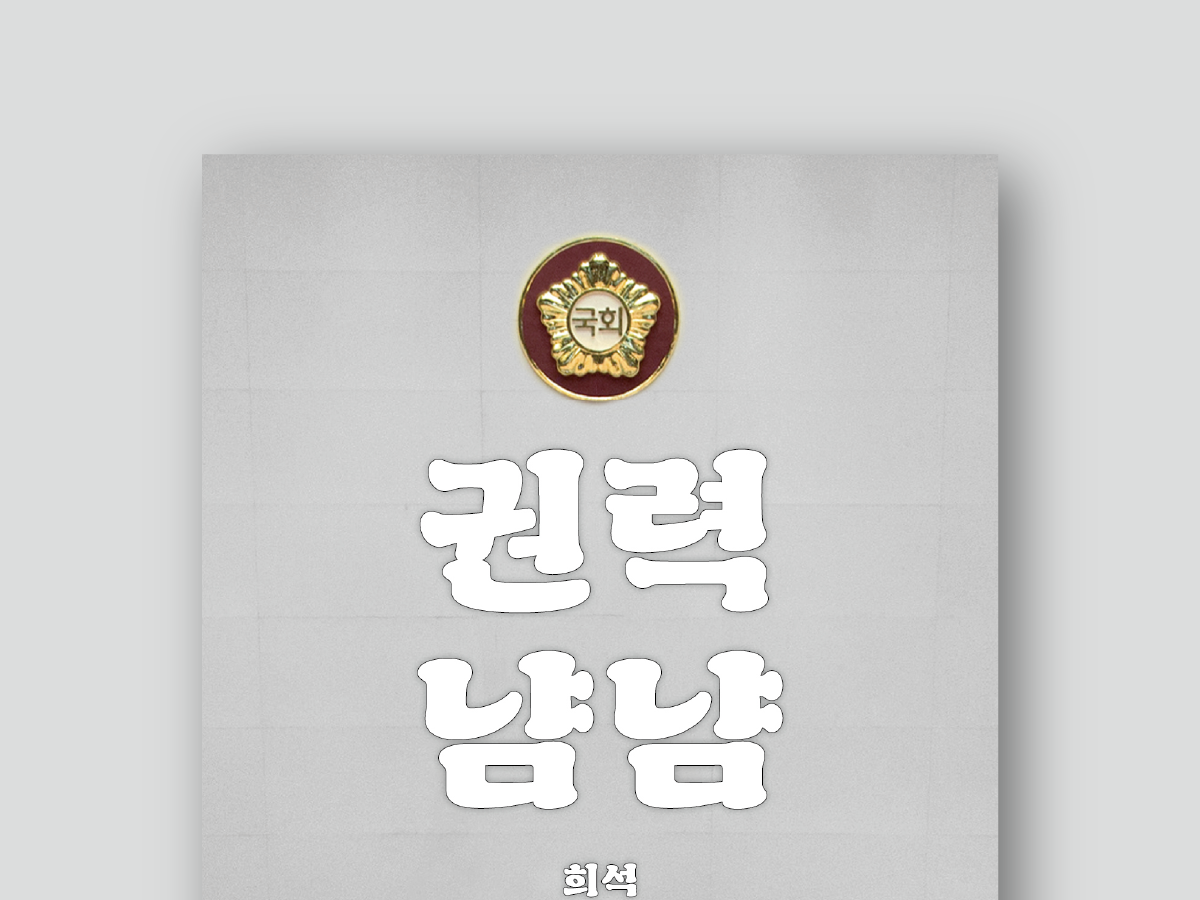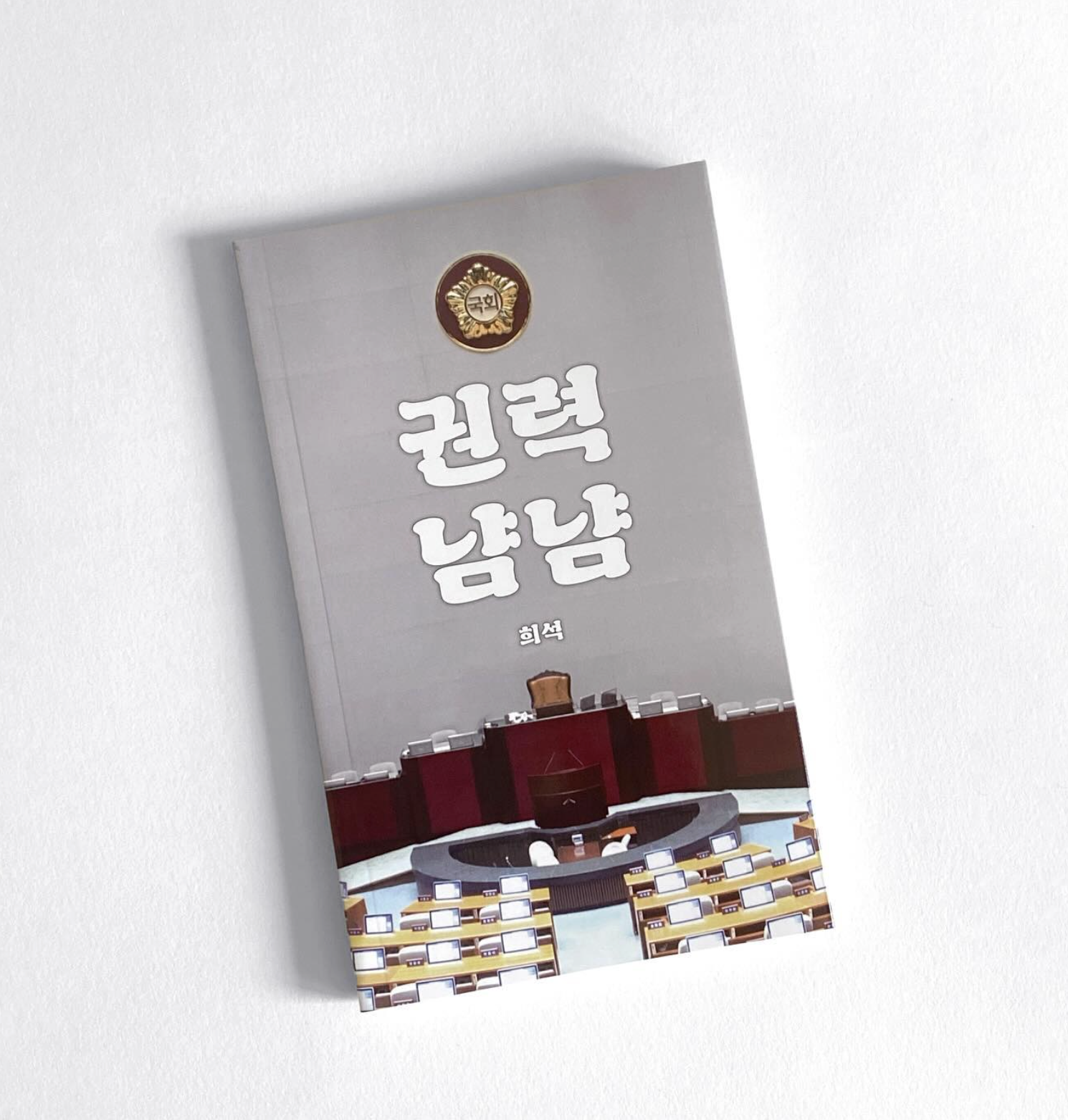
Carp Family
붕어 패밀리
Carp(Bung-eo) is a display typeface inspired by Cooper Black. While inheriting its heavy, rounded impression and bold strokes, it has been redesigned with a new structural order tailored to the syllabic block composition of Hangeul. The design features a sturdy build that fills the square frame with thick strokes, while the soft contact between the letterforms and the baseline evokes the plushness of a pillow despite its large volume. To reflect this cozy impression, it was named Carp(Bung-eo)—a word that feels just as soft when spoken aloud. For expanded versatility, we also created Carp(Bung-eo) Glossy, which brings to mind the shimmering, silvery scales of its namesake.